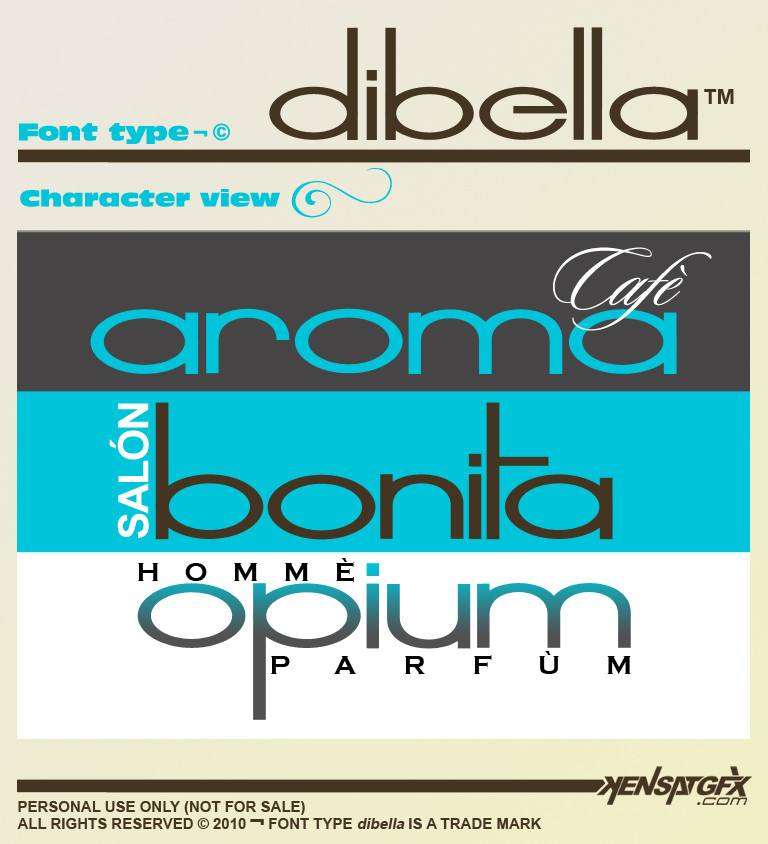
KENSAT — dibella font type
Description wanted to make something that looks simple but elegant
Fabrikken [2010-01-13 01:49:53 +0000 UTC]
Nice choice of colours.
looks awesome
beautiful!!
blast!
*sigh*
KENSAT In reply to Whiim [2010-01-07 22:25:34 +0000 UTC]
lol